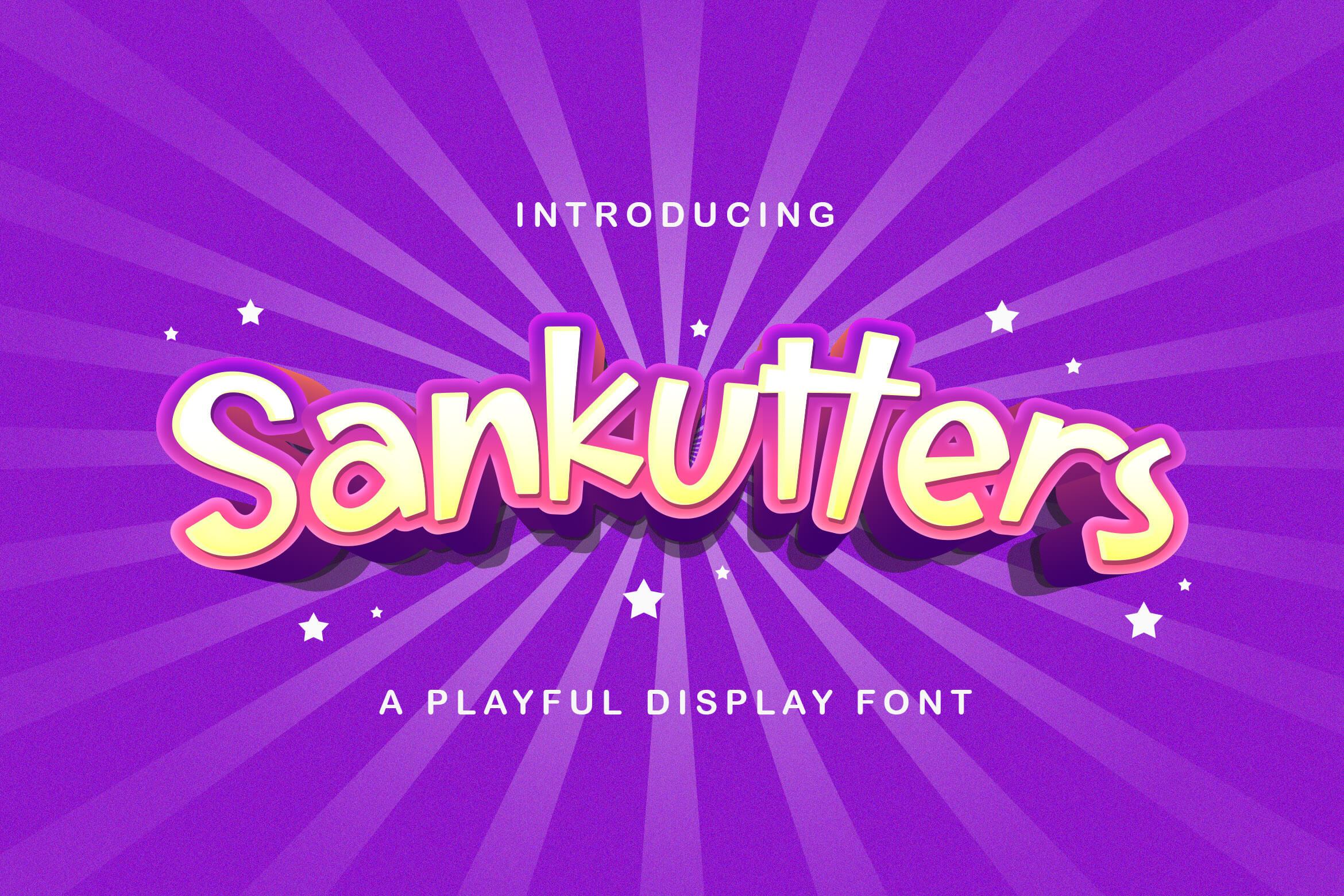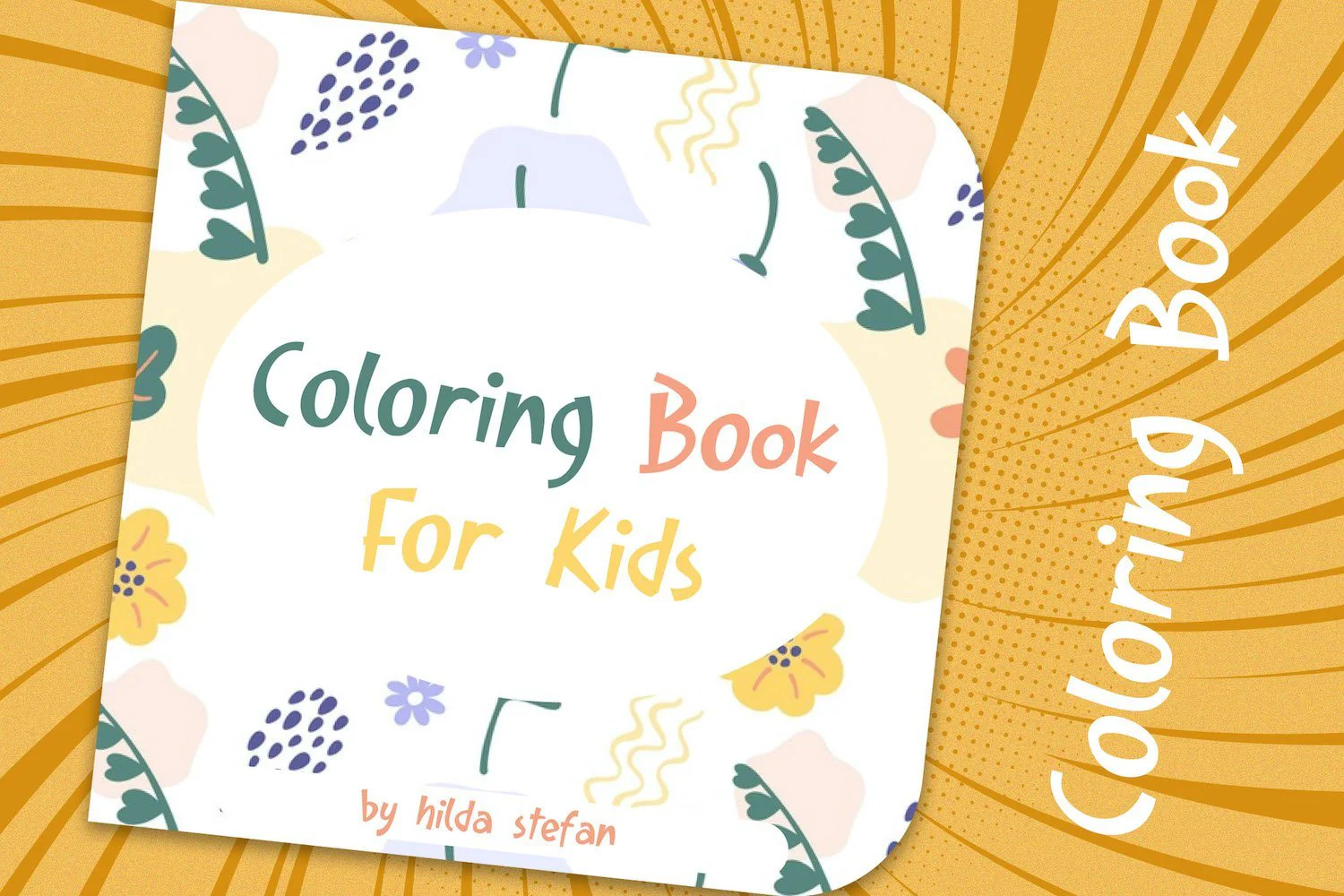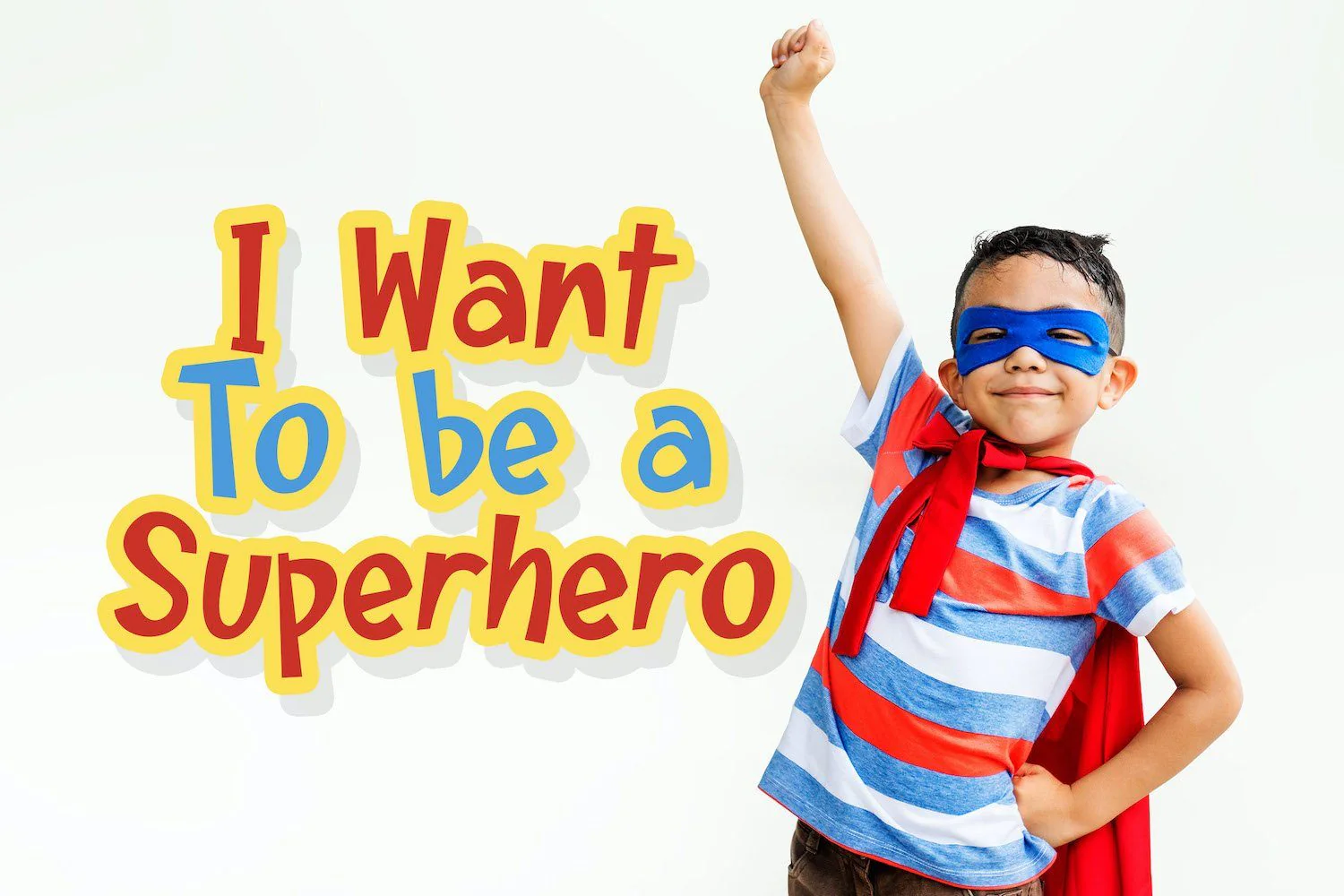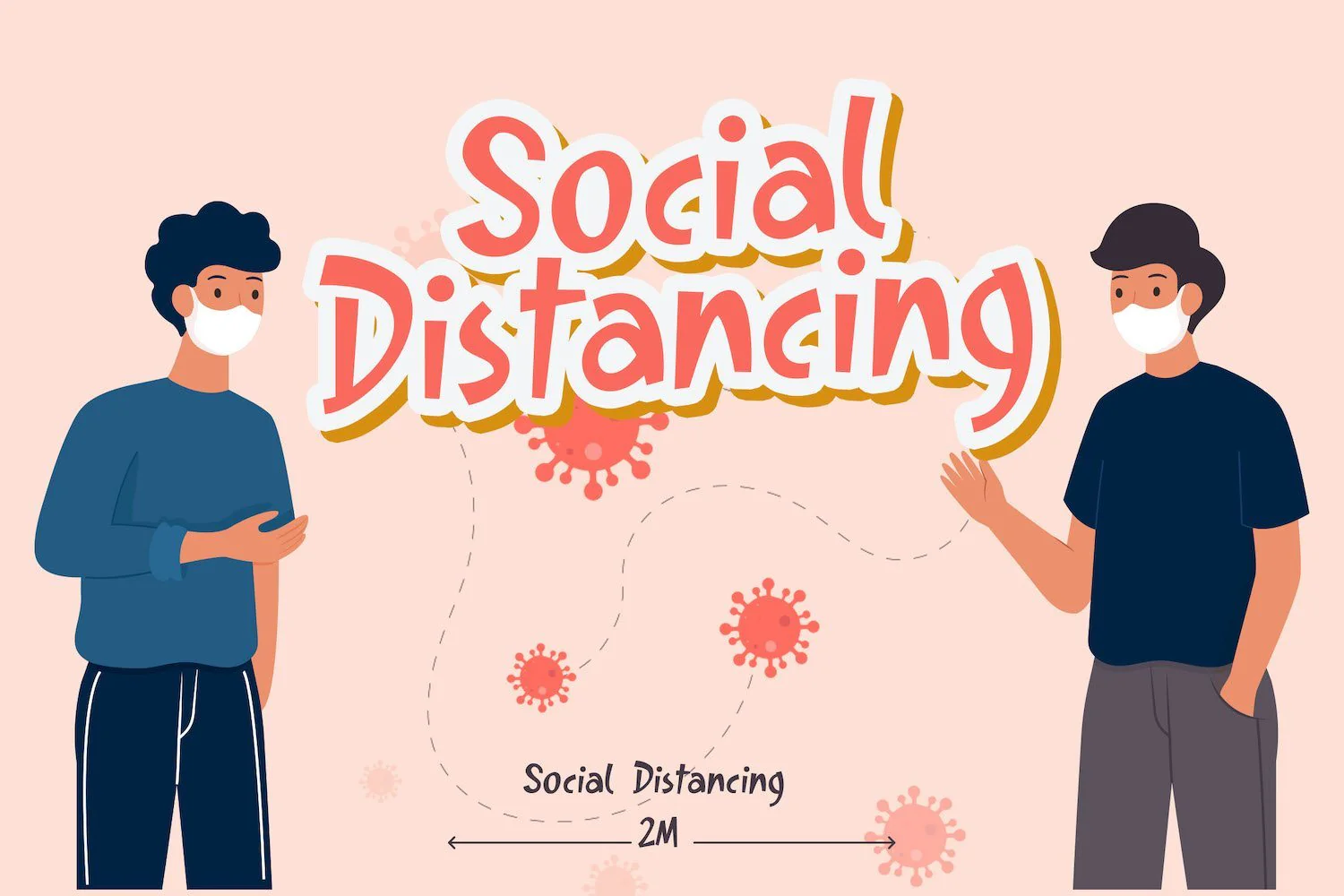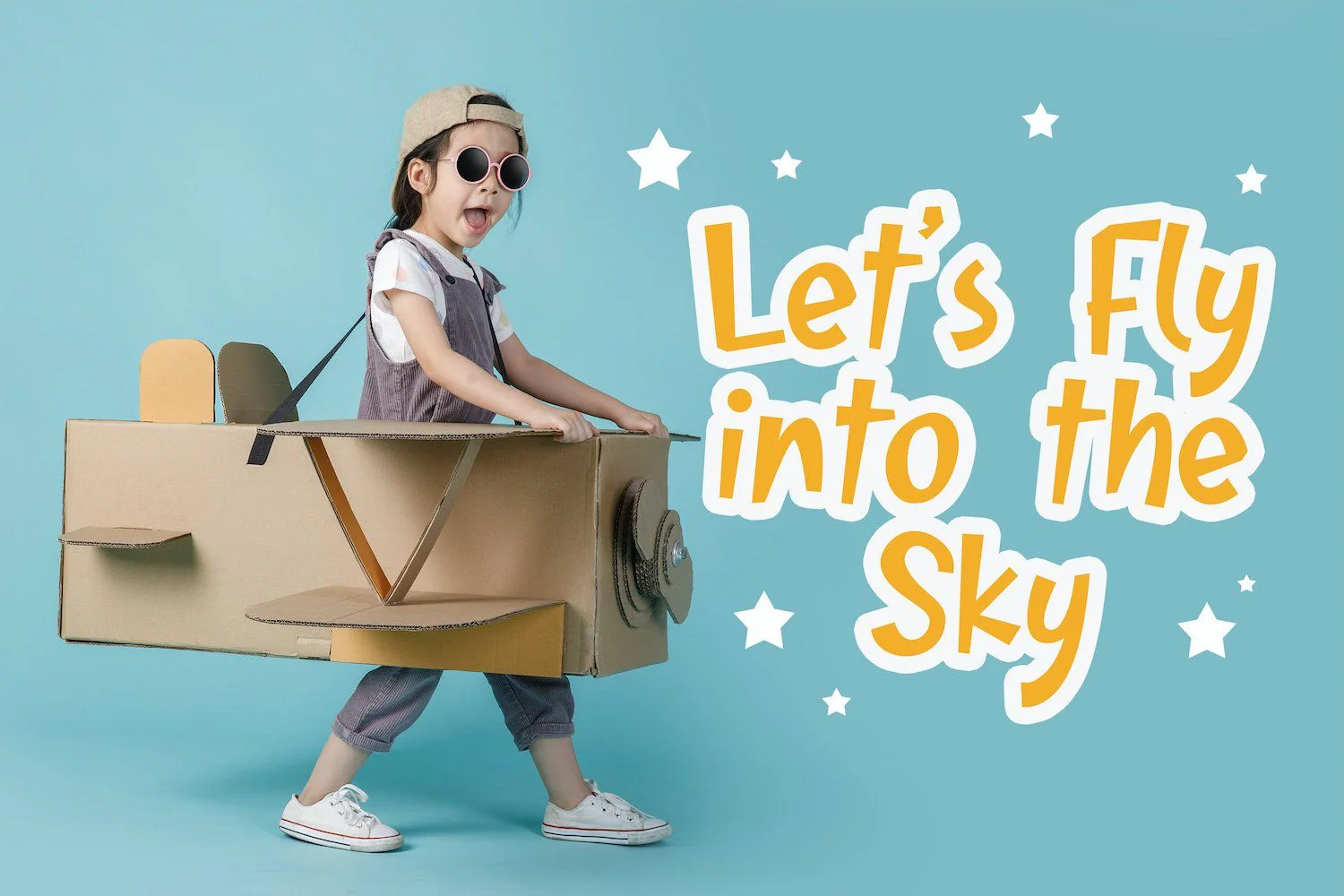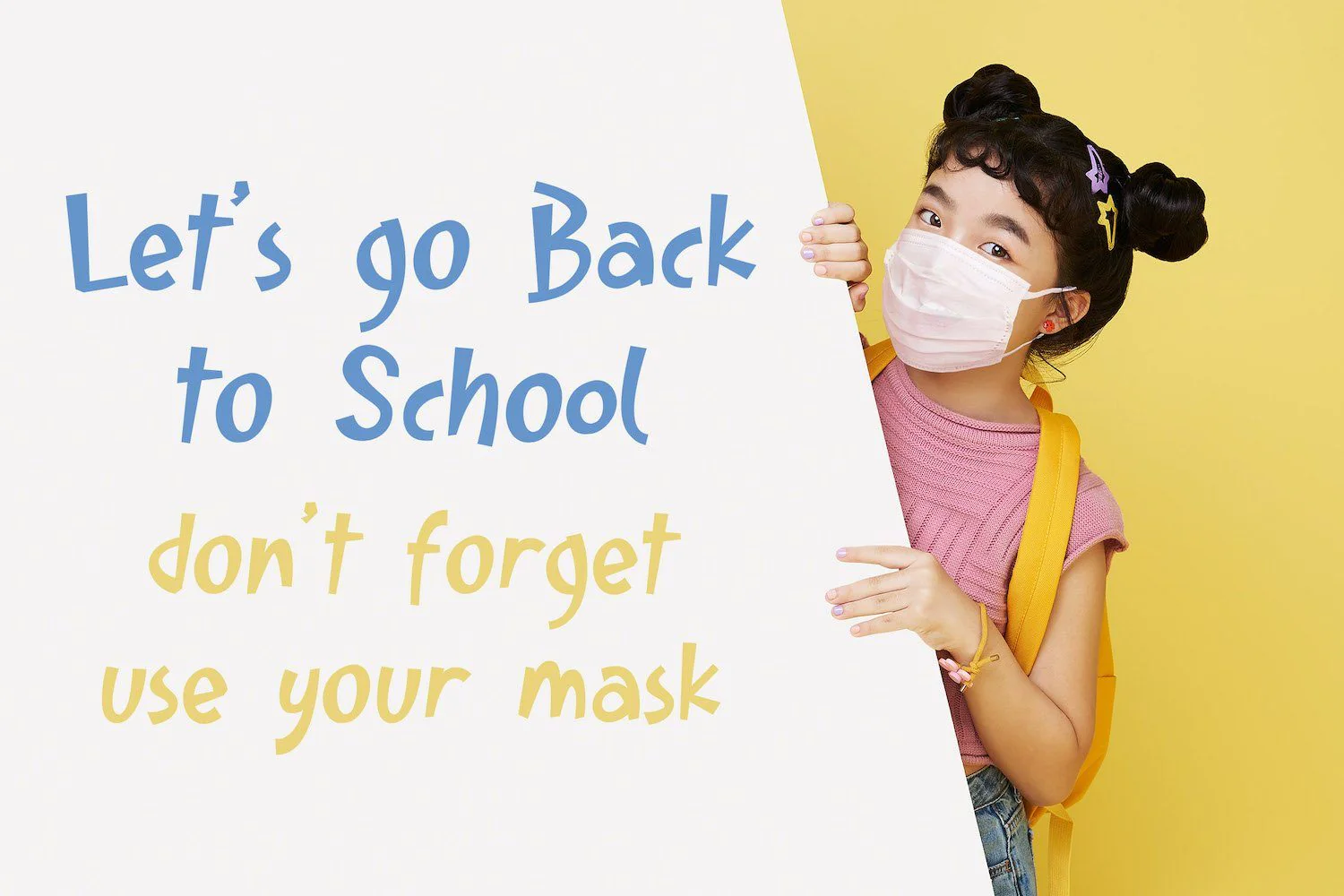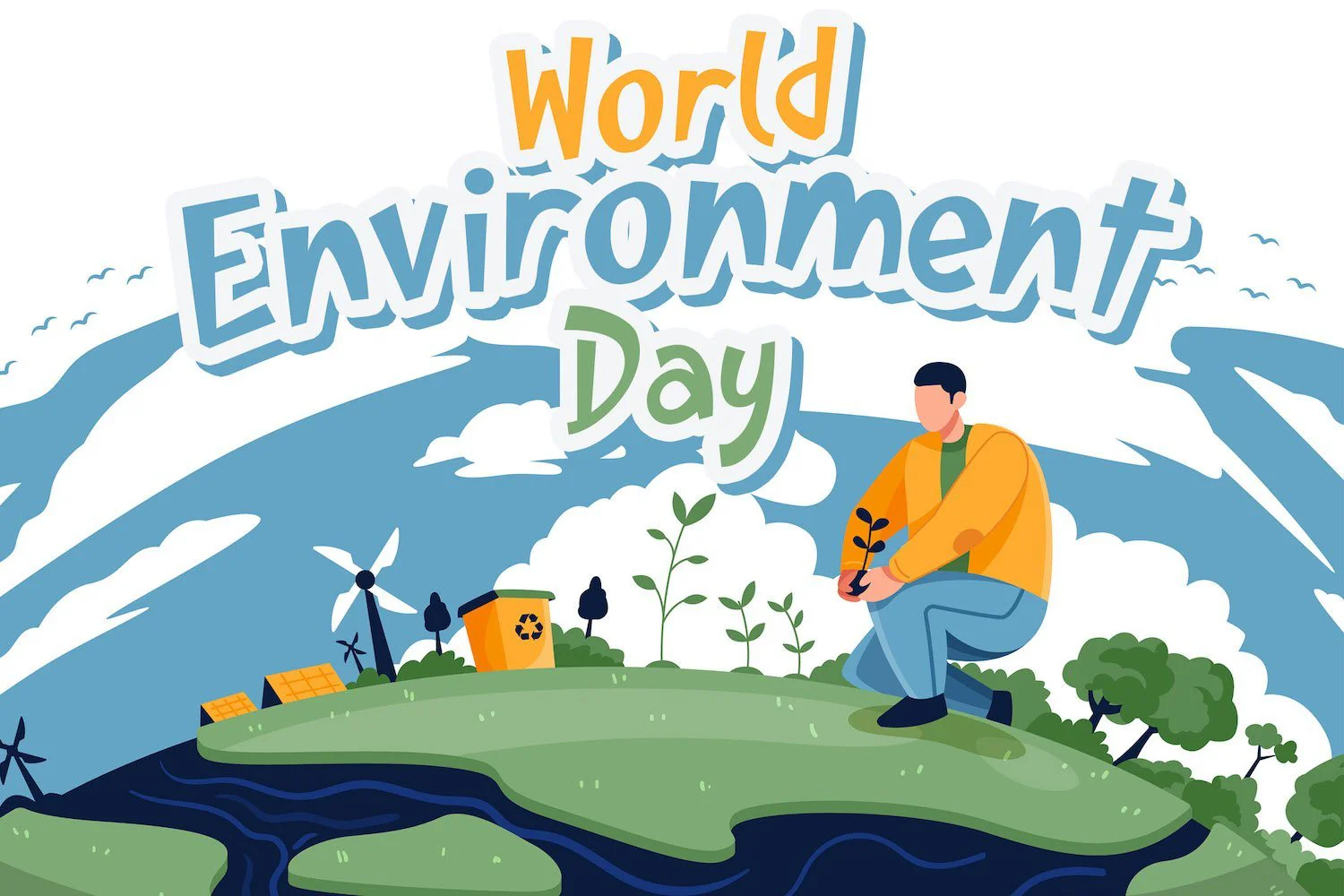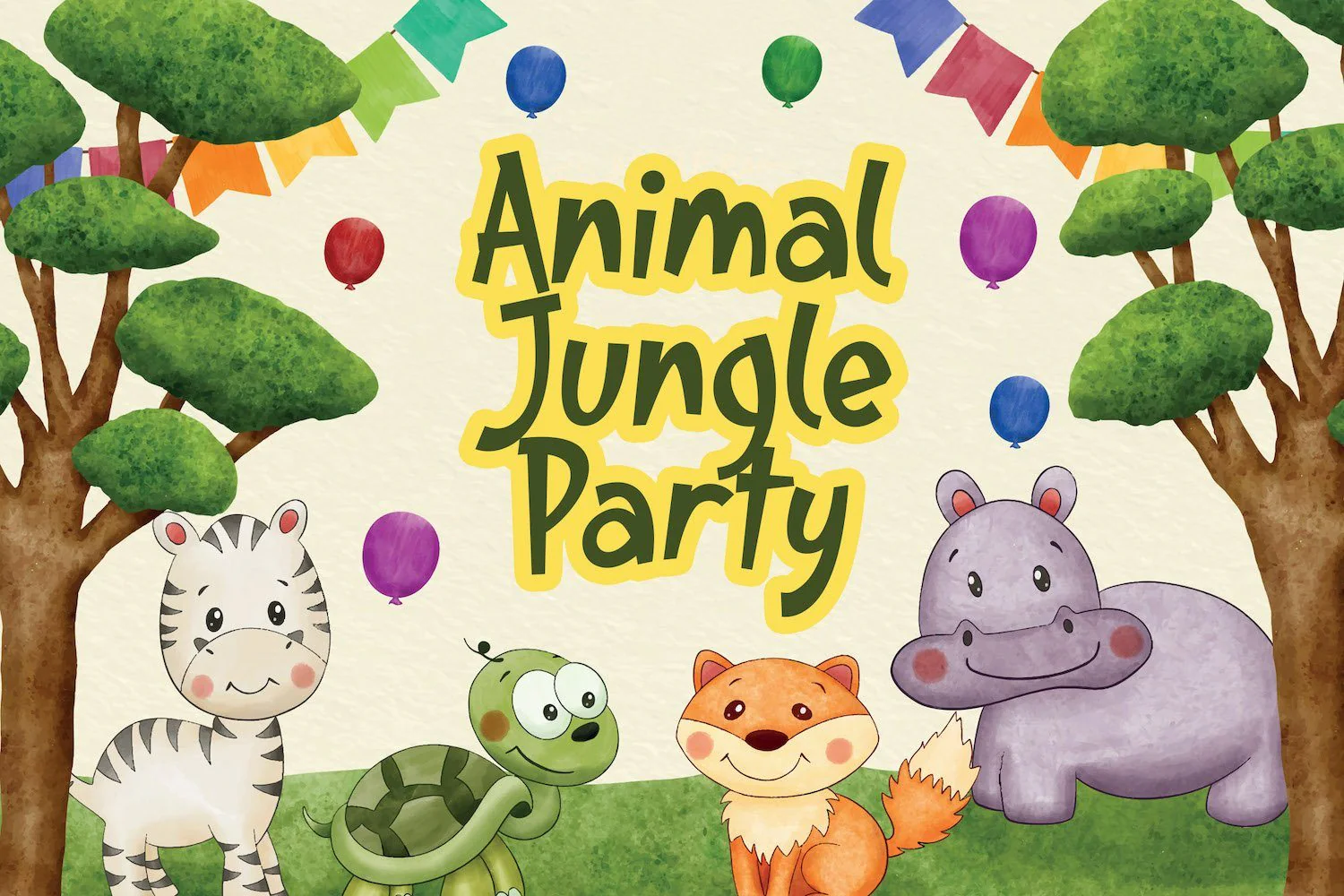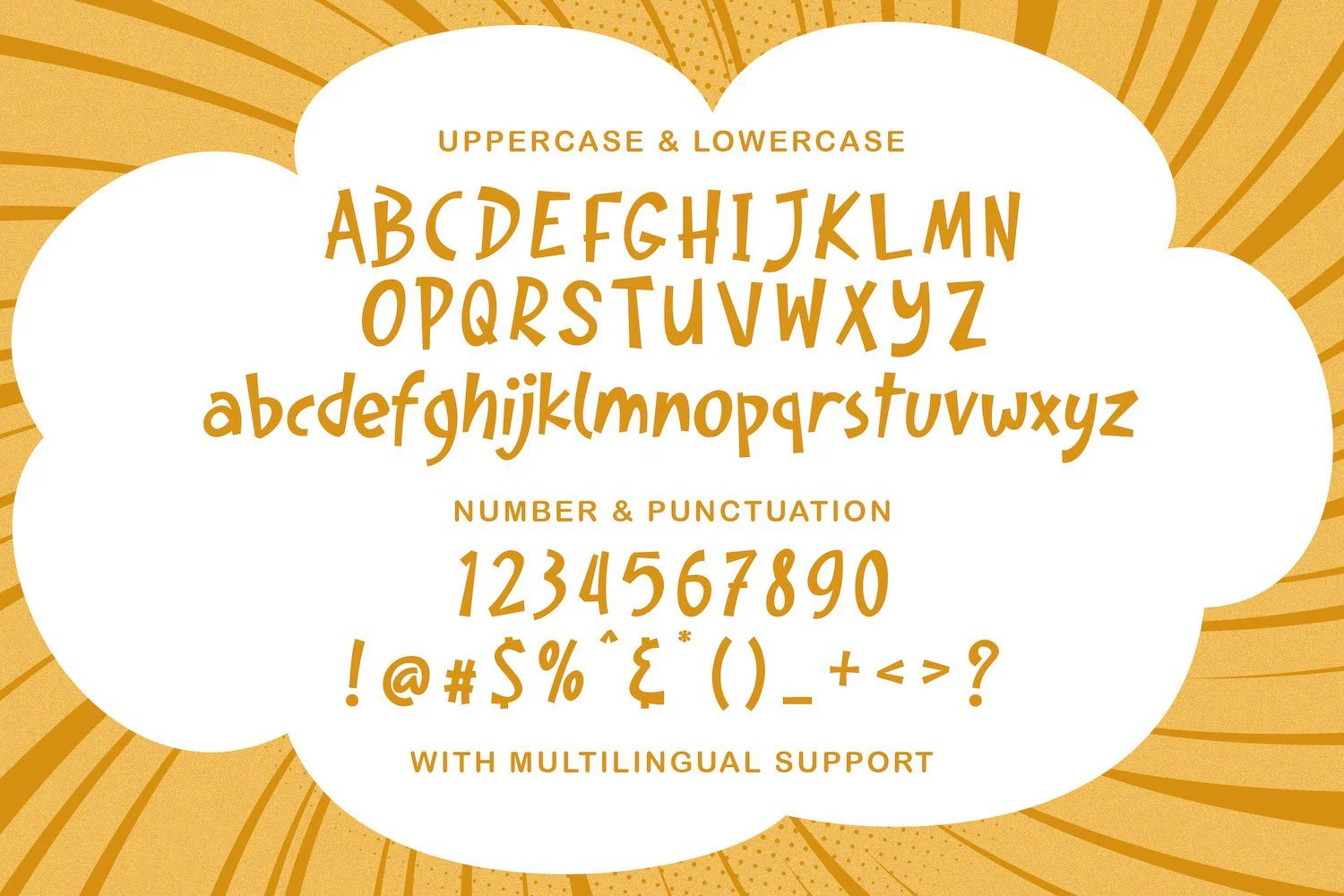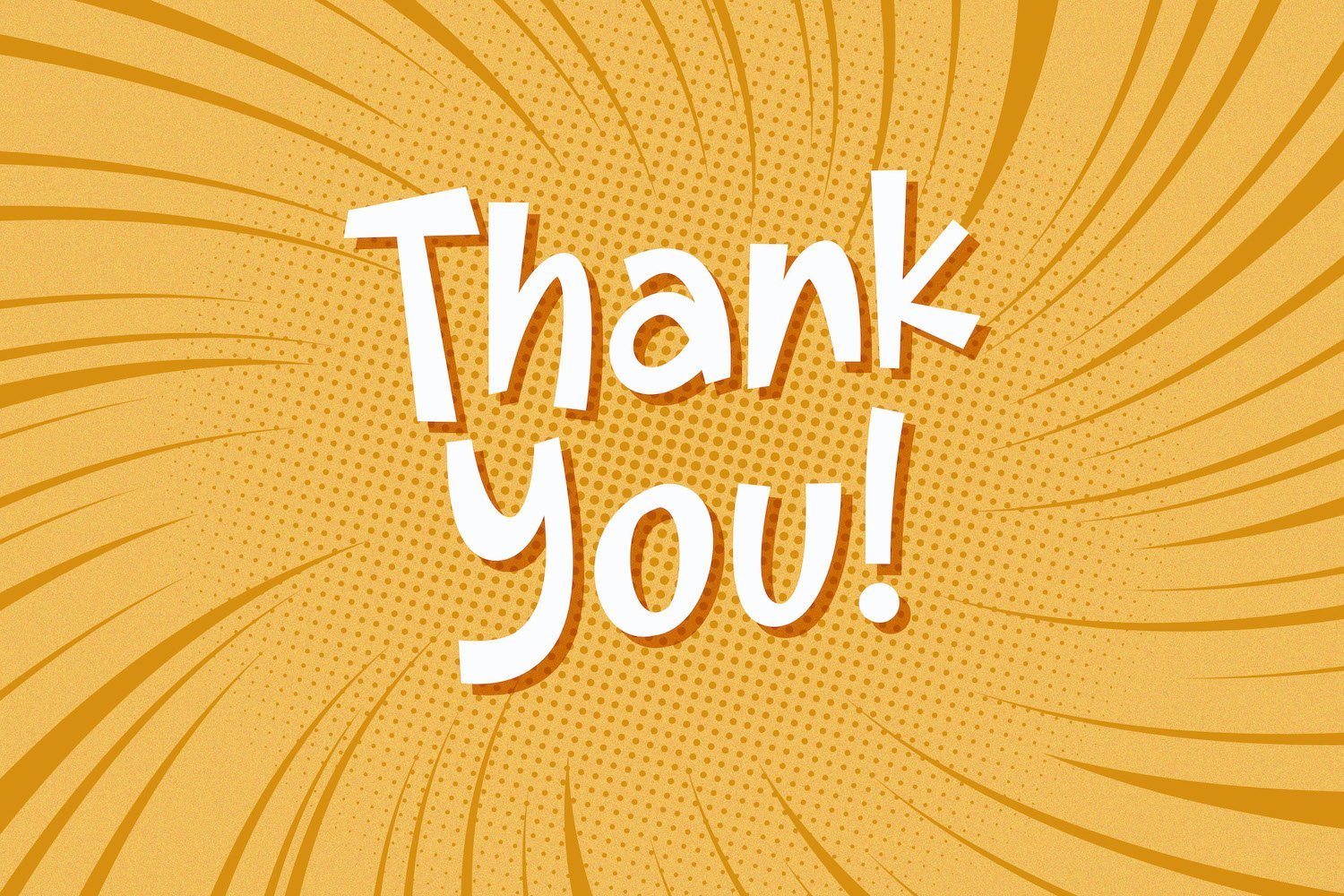
Sankutters - Playful Display Font
Introducing Sankutters - Playful Display Font
Sankutters is a fun display font. Playful and fresh, this font will be a hit for each of your children or school projects!
Introducing Sankutters - Playful Display Font
Sankutters is a fun display font. Playful and fresh, this font will be a hit for each of your children or school projects!